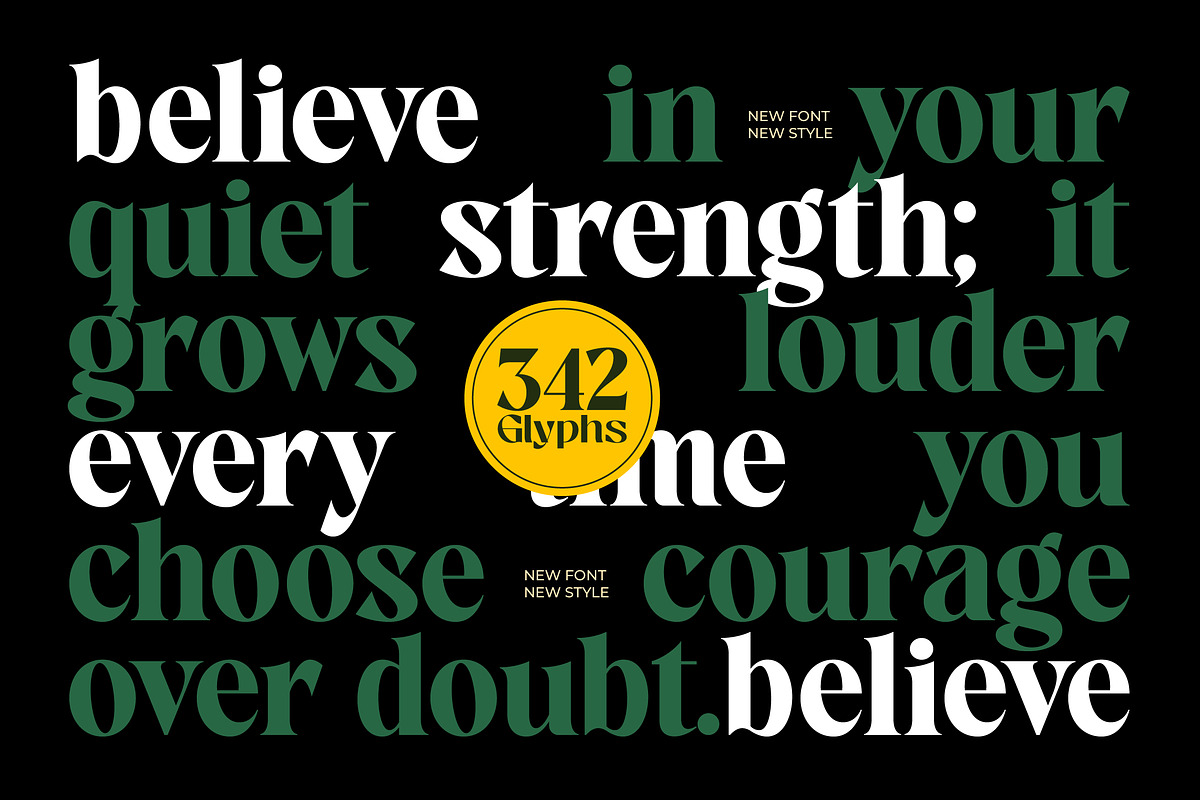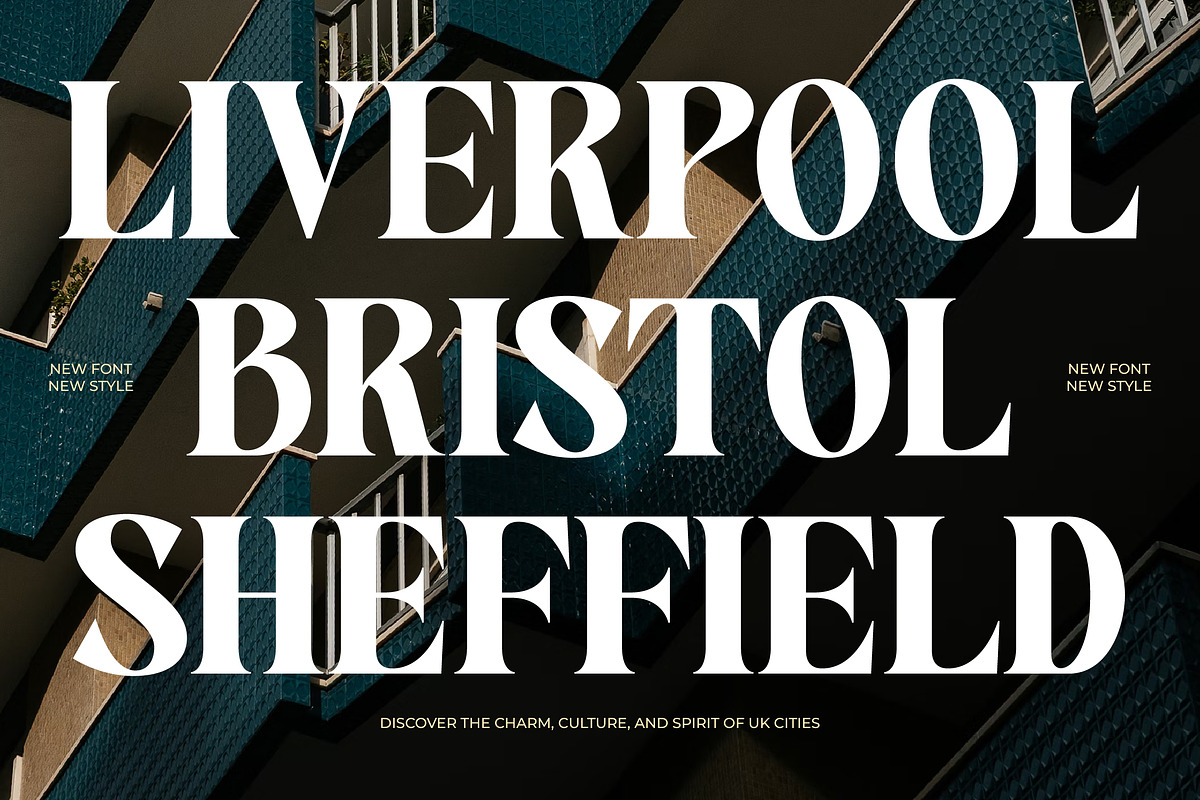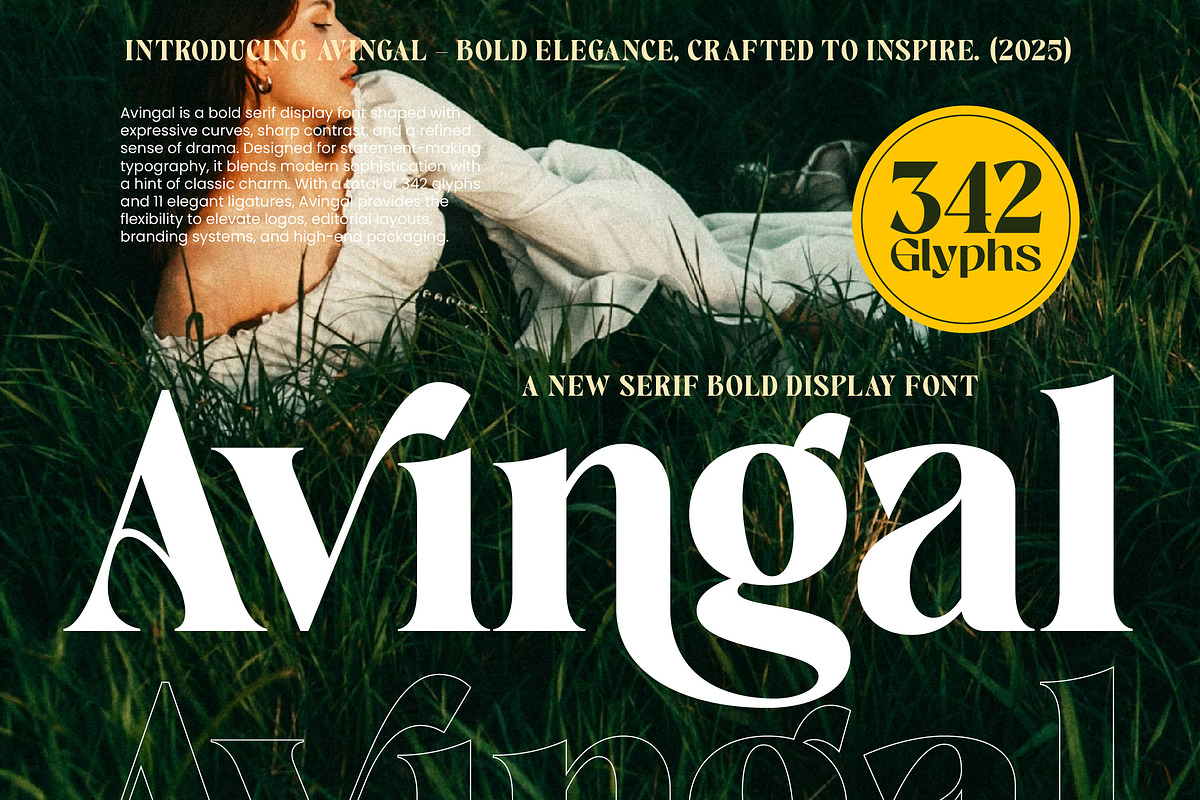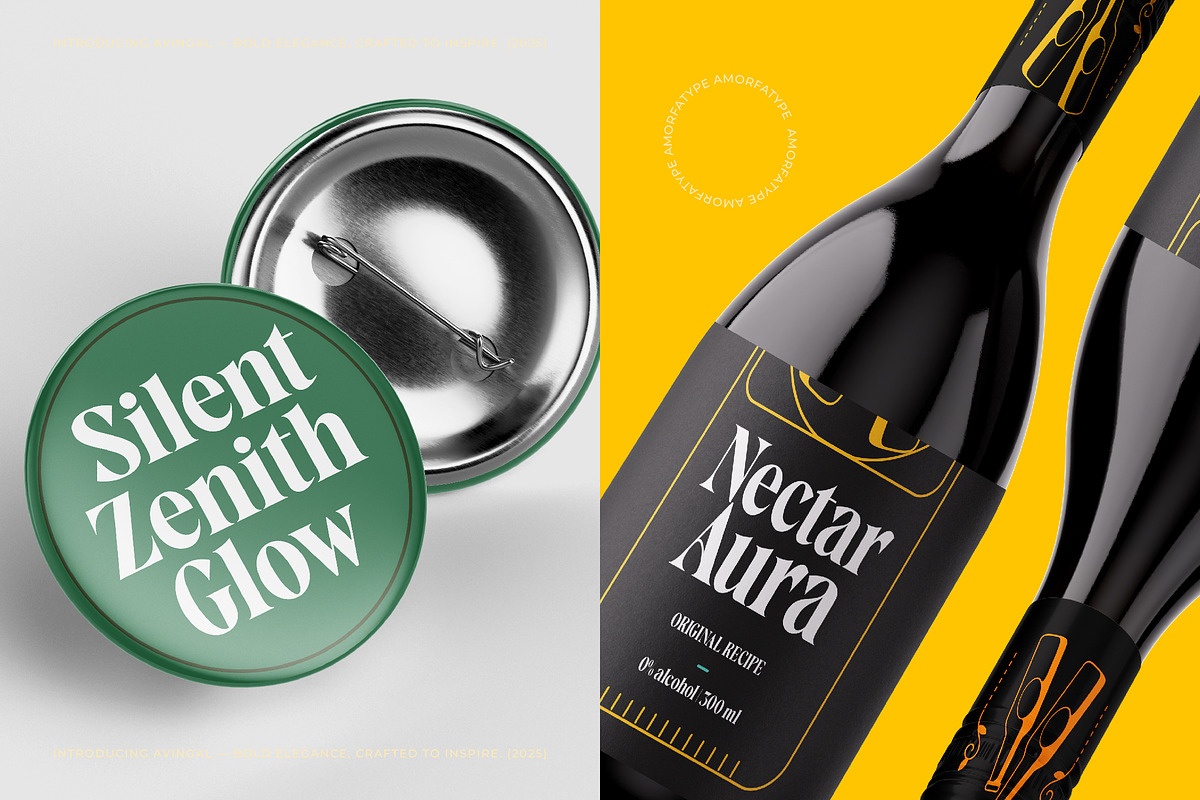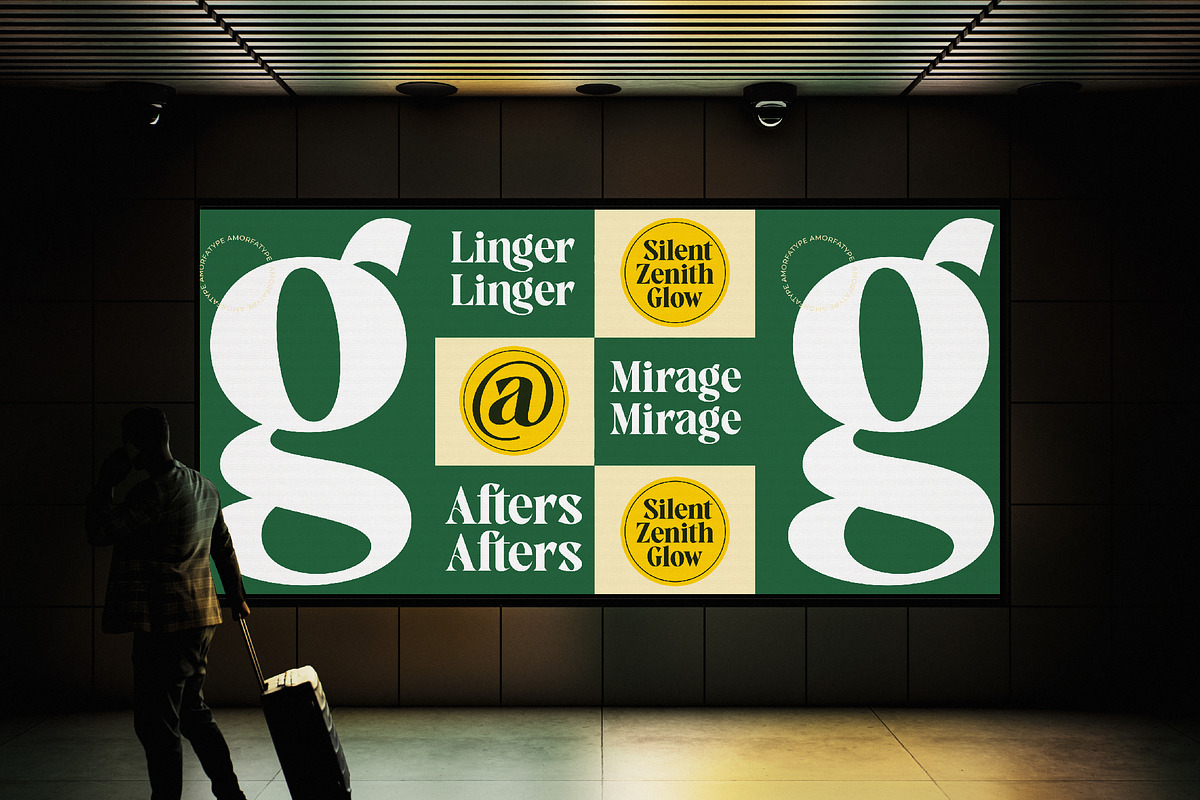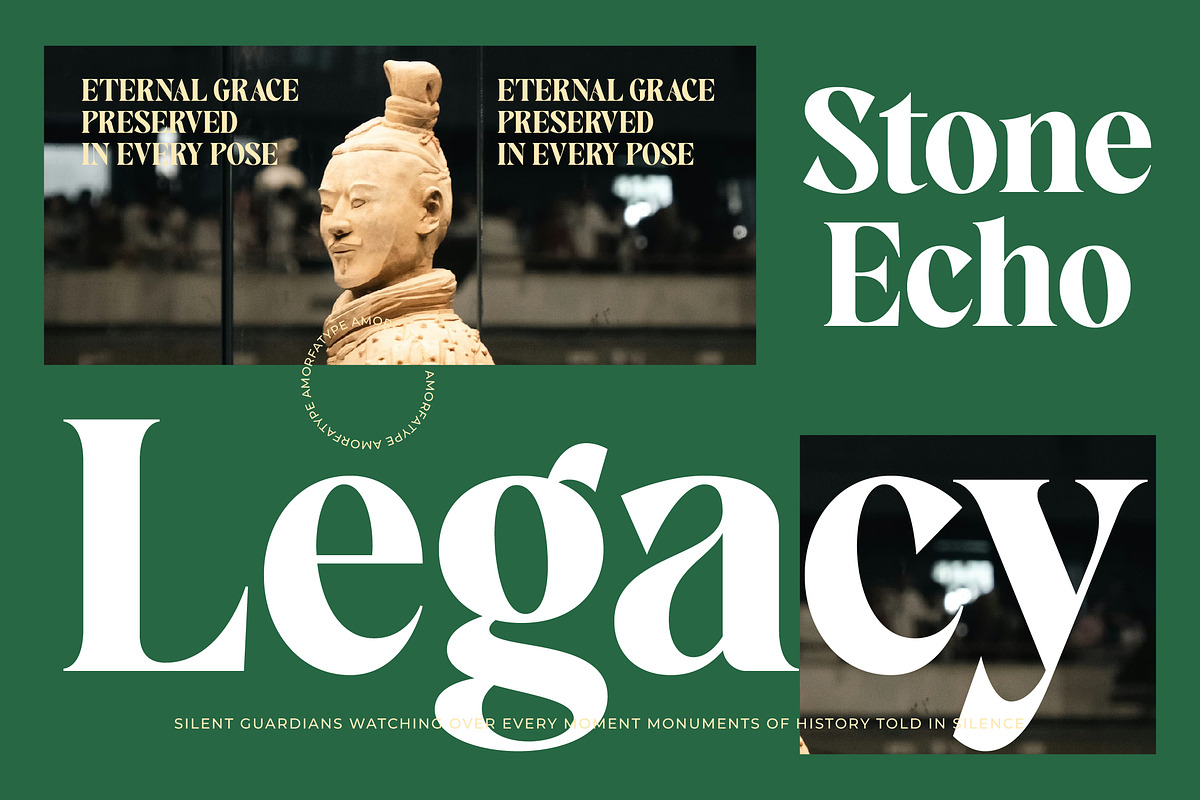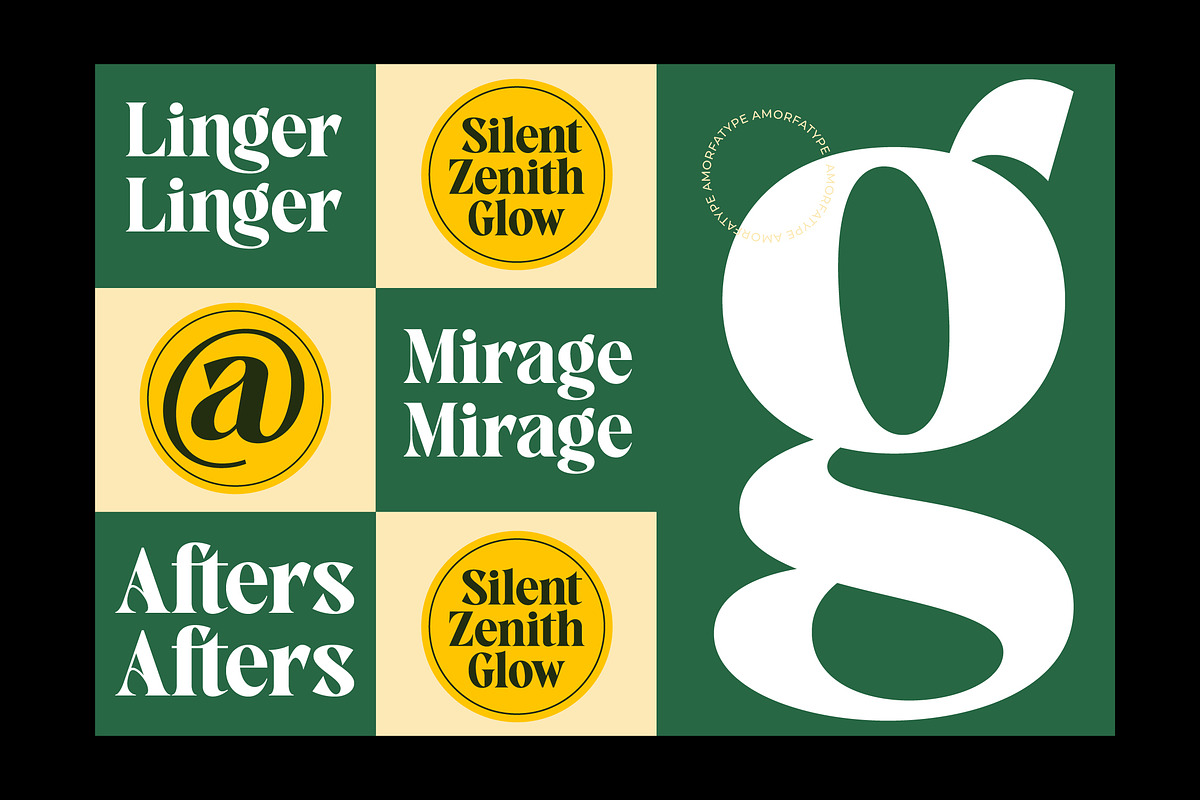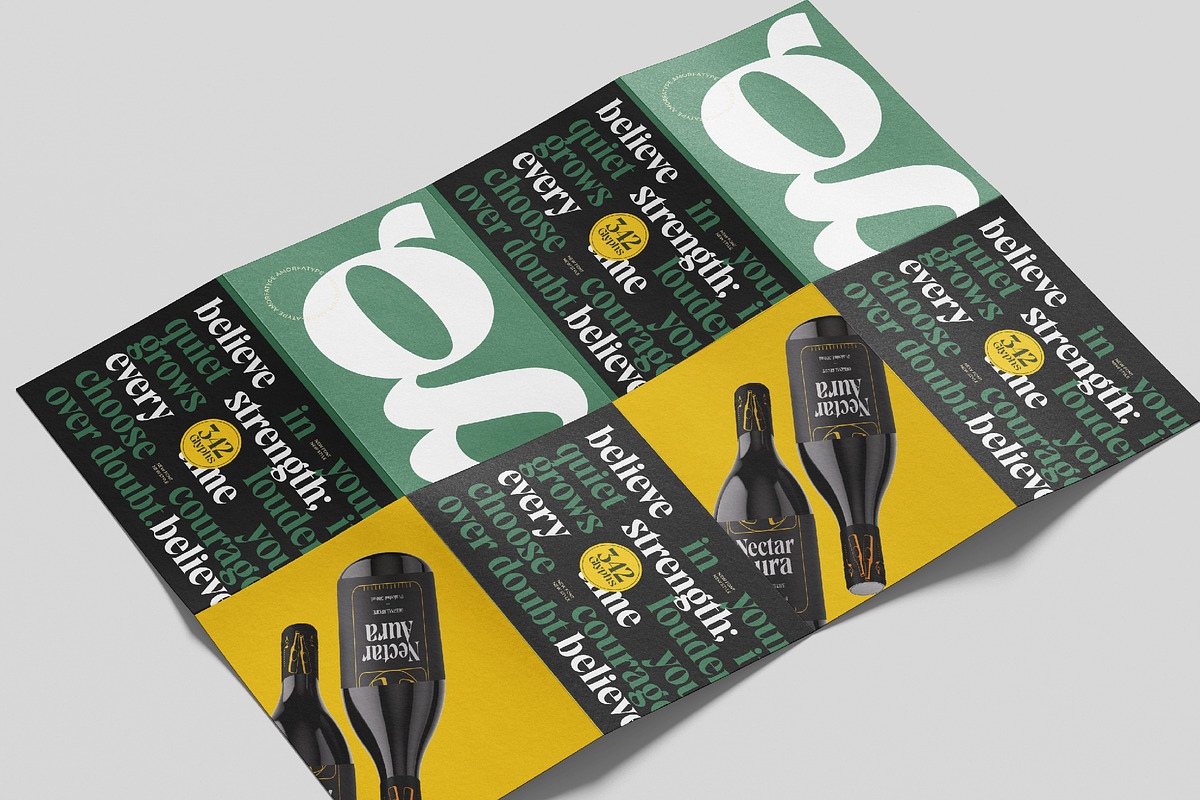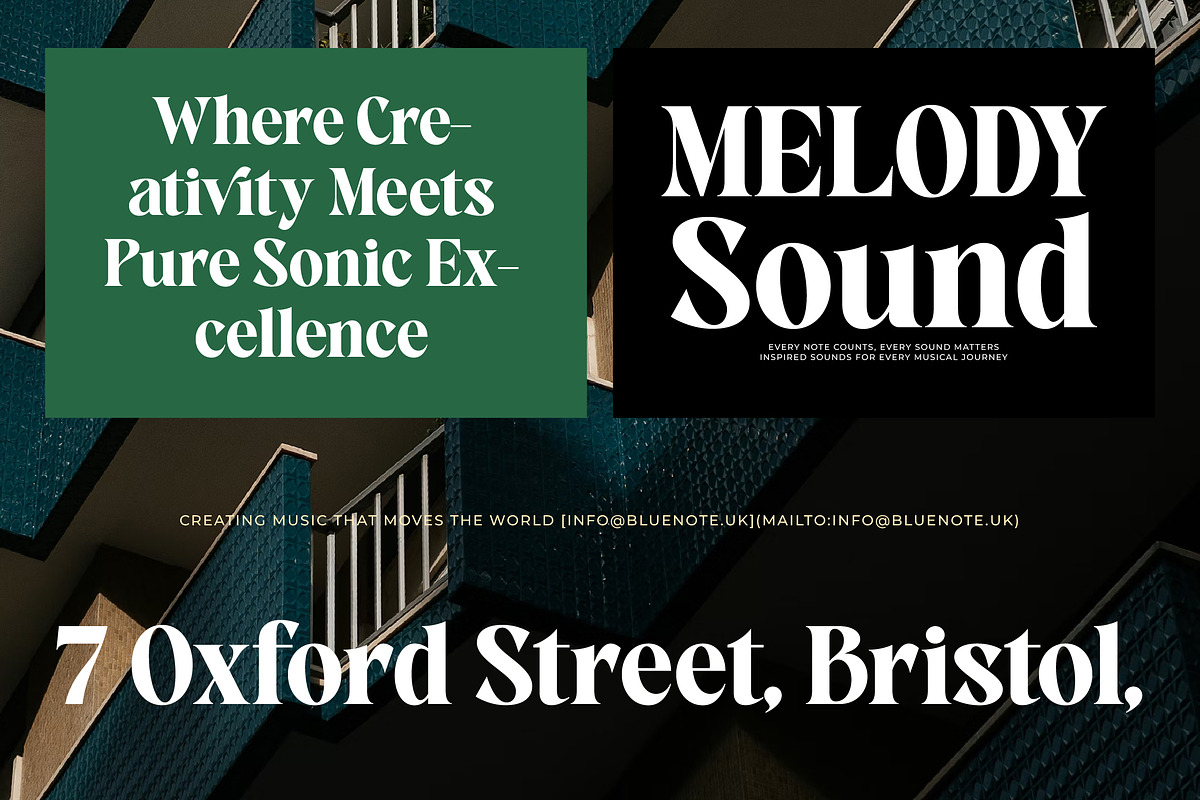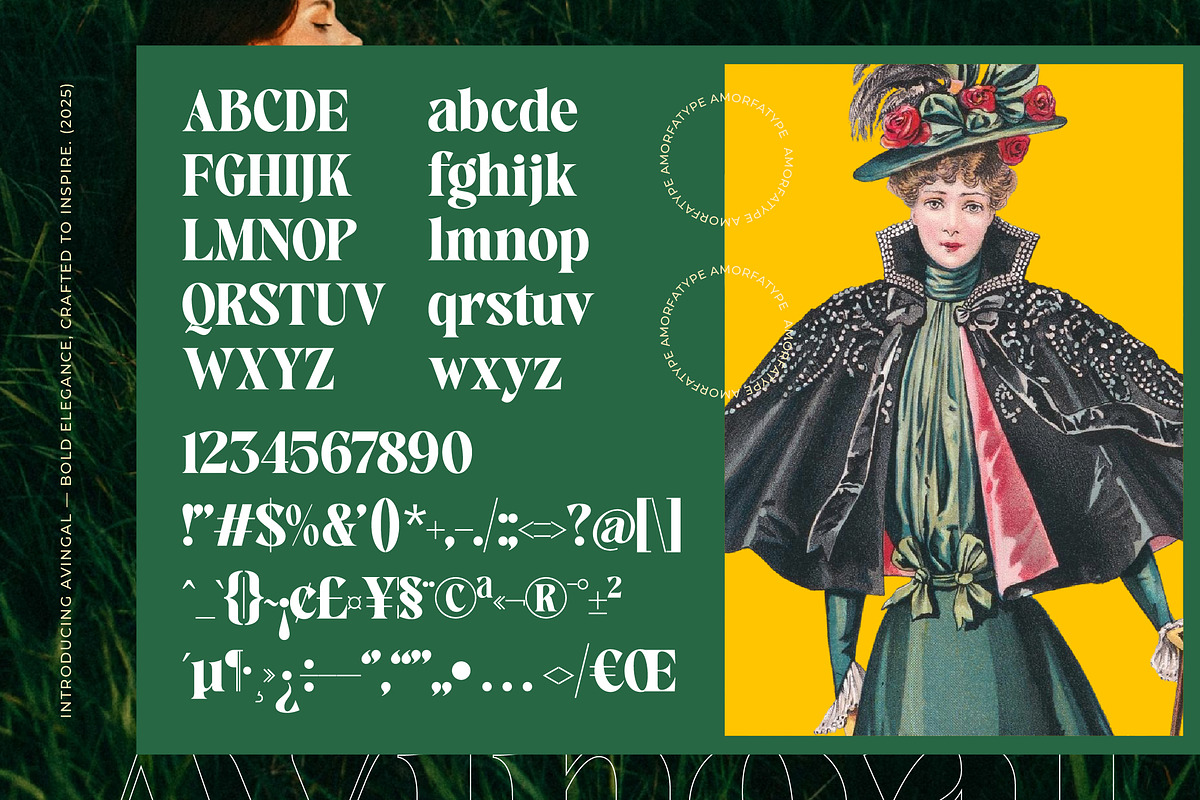
Avingal New Serif Bold Display
Avingal is a bold serif display font crafted with strong, expressive forms and elegant contemporary detailing. Blending classic serif structure with a confident modern edge, Avingal creates typography that feels powerful, stylish, and unmistakably refined. Its sharp transitions, sculpted curves, and high-impact letterforms make it perfect for standout titles and premium branding.
Avingal delivers a striking bold serif presence ideal for logos, editorial headlines, product packaging, fashion themes, and any design that needs a sophisticated display aesthetic. The typeface combines elegance with authority, offering a bold visual voice while maintaining clean readability and polished character.
Bring bold elegance and a refined display personality to your next creative project with Avingal.